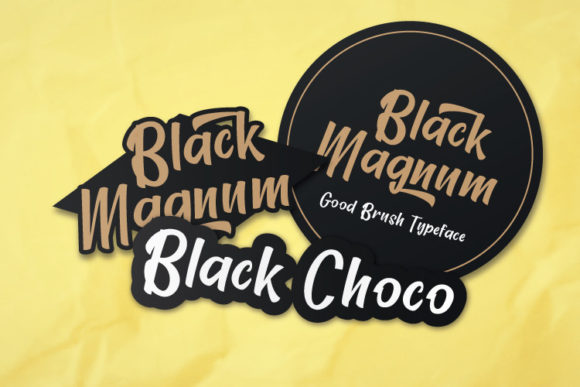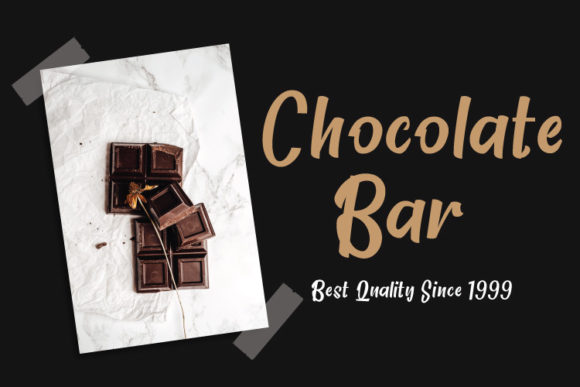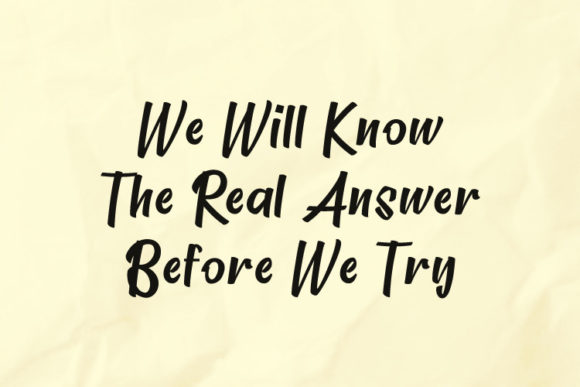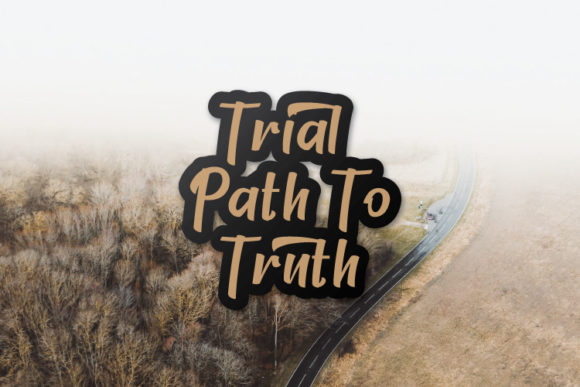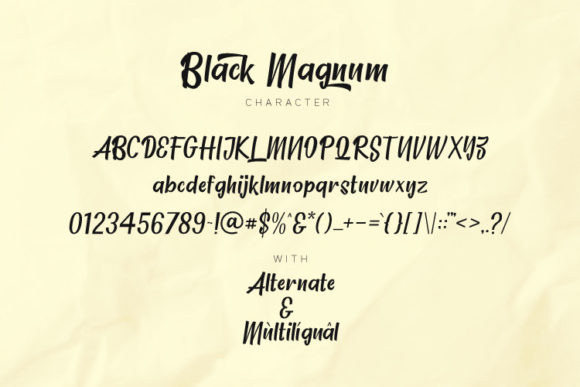
Unleash Your Creativity with Black Magnum Font
Are you tired of using the same old fonts for your designs? Look no further! Black Magnum Font is a game-changer for designers and crafters alike. This clean and paint-brushed script font is packed with cool and fun characters that will take your designs to the next level.
What Makes Black Magnum Font Stand Out?
Black Magnum Font is not just another font – it’s an experience. With its unique blend of clean lines and paint-brushed strokes, this font adds a touch of personality to any design. Whether you’re working on a logo, a poster, or a social media graphic, Black Magnum Font is sure to make your design stand out from the crowd.
Key Features of Black Magnum Font
- Clean and Paint-Brushed Script Font: Black Magnum Font features a beautiful blend of clean lines and paint-brushed strokes, giving it a unique and eye-catching look.
- Cool and Fun Characters: This font comes with a range of cool and fun characters that will add a touch of personality to your designs.
- PUA Encoded: Black Magnum Font is PUA encoded, which means you can access all of the amazing glyphs and ligatures with ease.
- Perfect for Any Design: Whether you’re working on a logo, a poster, or a social media graphic, Black Magnum Font is perfect for any design project.
Why Choose Black Magnum Font?
So why choose Black Magnum Font over other fonts? Here are just a few reasons:
- Versatility: Black Magnum Font is versatile and can be used for a wide range of design projects.
- Unique Look: Black Magnum Font has a unique look that will set your designs apart from the crowd.
Tips and Tricks for Using Black Magnum Font
Here are a few tips and tricks for getting the most out of Black Magnum Font:
- Experiment with Different Sizes: Experiment with different font sizes to see how Black Magnum Font looks in different contexts.
- Pair it with Other Fonts: Pair Black Magnum Font with other fonts to create a unique and eye-catching look.
- Use it for Headings: Use Black Magnum Font for headings and titles to add a touch of personality to your designs.
- Use it for Body Text: Use Black Magnum Font for body text to create a clean and easy-to-read design.
Black Magnum Font is a game-changer for designers and crafters alike. With its unique blend of clean lines and paint-brushed strokes, this font is sure to add a touch of personality to any design. Whether you’re working on a logo, a poster, or a social media graphic, Black Magnum Font is perfect for any design project. So why wait? Download Black Magnum Font today and see how it can take your designs to the next level.